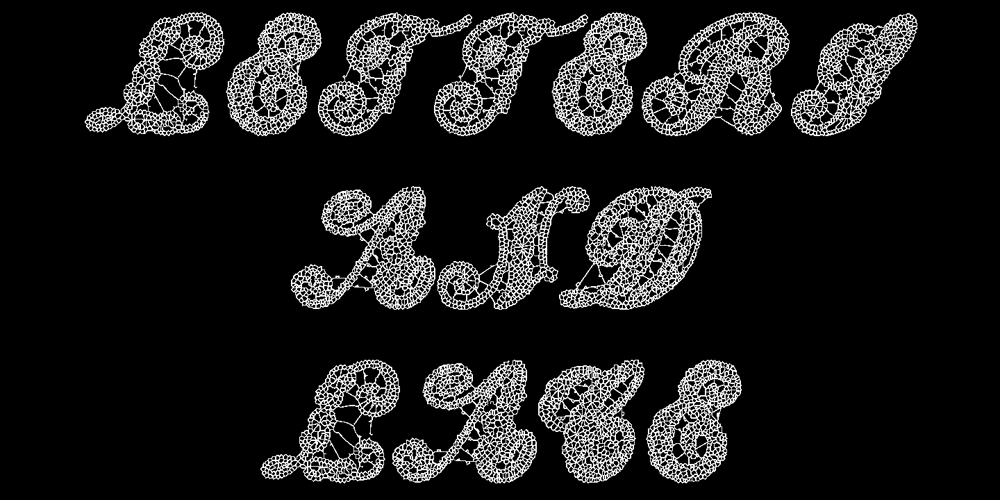
Letters And Lace Font Family was designed by Jose Jimenez and published by Celebrity Fontz. Letters And Lace contains 1 styles and family package options. Letters and Lace is a replica of hand-crafted lace letters. Delicate and artistic, these letters will give warmth to any text. Comes with a full set of accented characters.